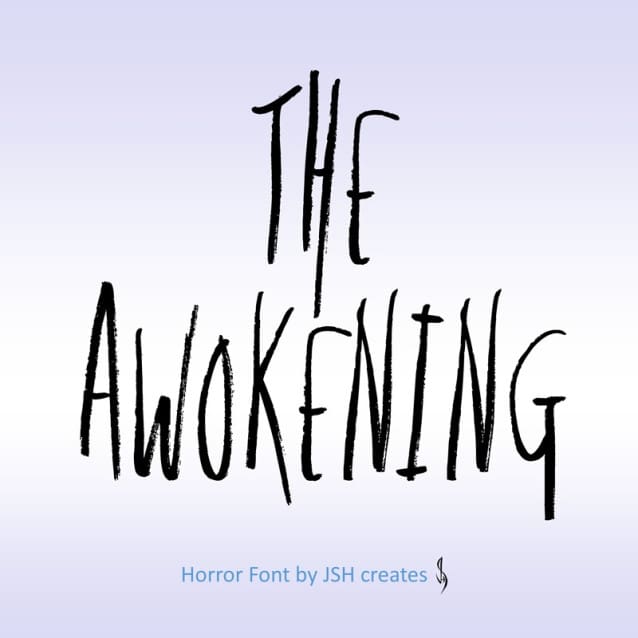
The Awokening Font
The Awokening Font, Cool handwritten horror font. Perfect for advertising and display purposes, including banners, book covers, shirts, posters, logos and much more!